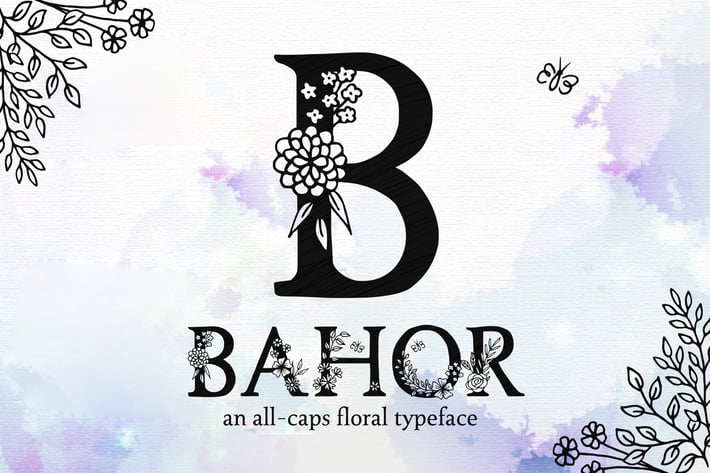
Bahor - Hand Made Floral Typeface
Bahor is a hand drawn floral display font with black ink serif letters and beautiful flowers. The flower decoration is different in the upper and lower case section, to add variety and diversification to your words.
Multilingual support is included for Western, Central and Eastern European languages.